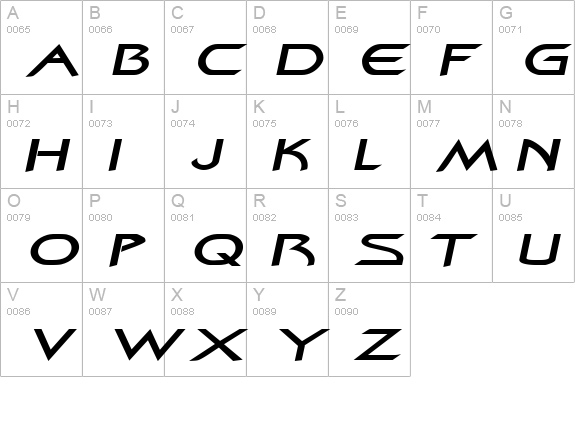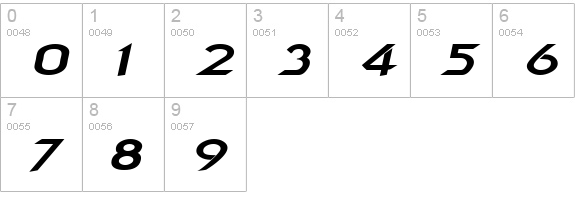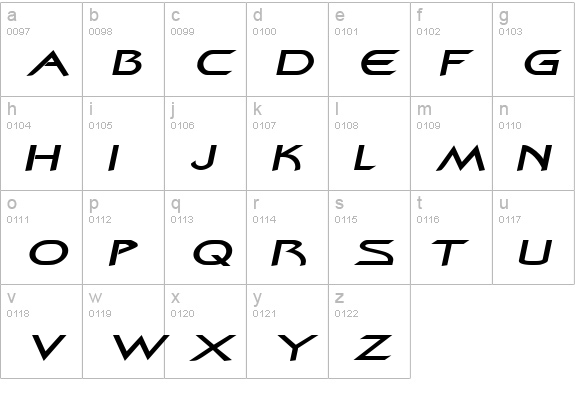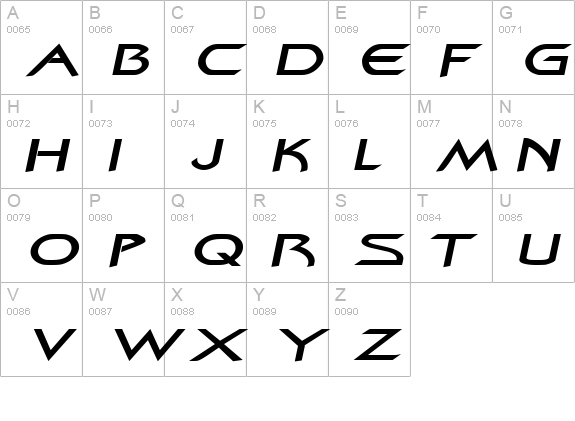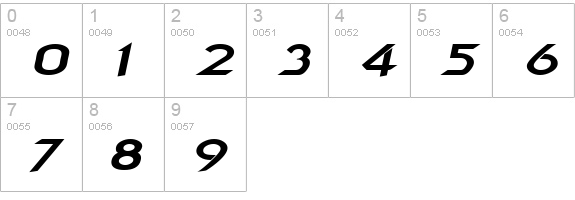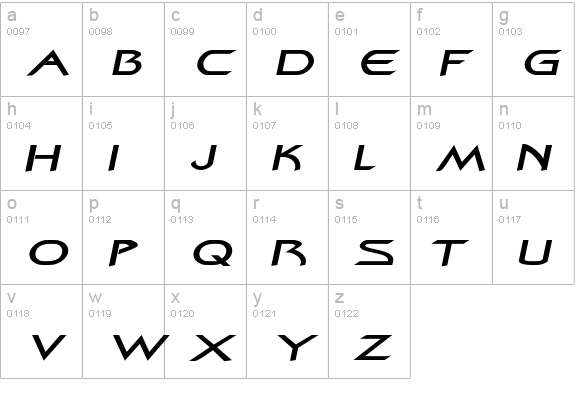
ZenonExtended Italic is a distinctive, italic variant in the ZenonExtended typeface family \xE2\x80\x94 well suited to design and typography projects.
ZenonExtended Italic is a modern and elegant typeface that exudes sophistication and style. Its sleek and fluid design creates a sense of movement and dynamism, making it perfect for adding a touch of contemporary flair to any project. The italicized version of ZenonExtended adds a unique and artistic twist to the font, making it stand out from the crowd. The ZenonExtended Italic font is not only visually appealing but also highly versatile, suitable for a wide range of design applications including branding, advertising, editorial design, and more. Its clean lines and refined curves make it a perfect choice for creating a polished and professional look. Best of all, ZenonExtended Italic is completely free to download at FontsMarket.com, making it accessible to designers of all skill levels. Whether you're a seasoned professional or just starting out, this font is sure to elevate your designs and help you make a lasting impression. Download ZenonExtended Italic today and take your projects to the next level.